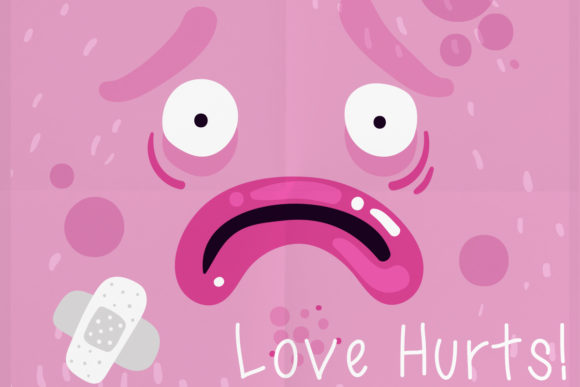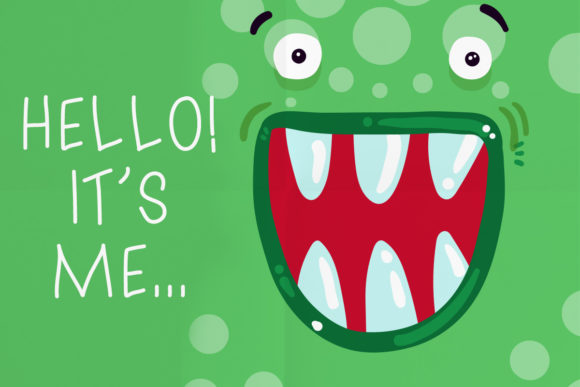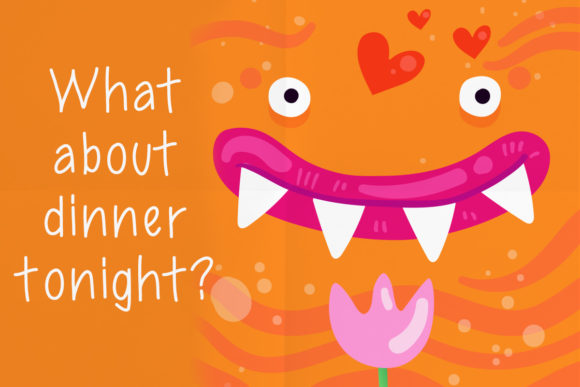
Introduction to Sassy Font
Have you ever been working on a creative project, pouring your heart and soul into it, only to realize that the perfect font is missing? That’s exactly what happened to me when I stumbled upon the Sassy Font. It was love at first sight – its playful, handwritten style instantly brought my design to life.
As a designer, I can attest that finding the right font can make all the difference in a project’s success. And that’s why I’m excited to share with you the Sassy Font, a high-quality design resource that’s perfect for any creative project. With its transparent background and free download option, you can easily incorporate it into your designs without any hassle.
Whether you’re working on a letterhead, title, or stationery, the Sassy Font is a valuable addition to your design arsenal. Its classy calligraphic influences and contemporary feel make it a versatile choice that’s sure to impress. So why settle for a generic font when you can add a touch of personality to your designs with the Sassy Font?
Key Features of Sassy Font
- Unique, high-quality design: Sassy Font is a premium font designed to add a touch of sophistication to any creative project.
- Perfect for creative projects: Whether you’re working on a logo, poster, or other design project, Sassy Font is a versatile and stylish choice that’s sure to impress.
Honest Review: Sassy Font
As a designer, I’m always on the lookout for high-quality design resources to elevate my creative projects. Recently, I had the chance to try out the Sassy Font, and I’m excited to share my honest review.
- ✨ High-quality design: The Sassy Font is beautifully crafted, with smooth lines and a unique character that sets it apart from other fonts.
- ⚠️ Limited character set: While the font itself is beautiful, the character set is somewhat limited, which may not be ideal for extensive use.
- ⚠️ Not suitable for body text: Due to its unique style, the Sassy Font may not be the best choice for large blocks of body text, but it’s perfect for headings and titles.
Overall, I’m impressed with the Sassy Font’s quality and versatility. While it may have some limitations, it’s a fantastic addition to any design library. If you’re looking for a unique and high-quality font for your creative projects, the Sassy Font is definitely worth checking out.
Sassy Font